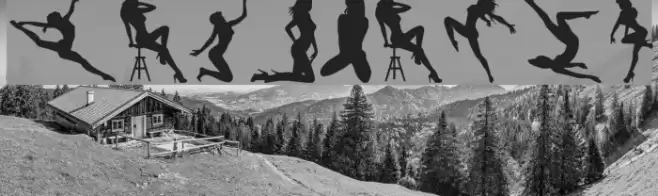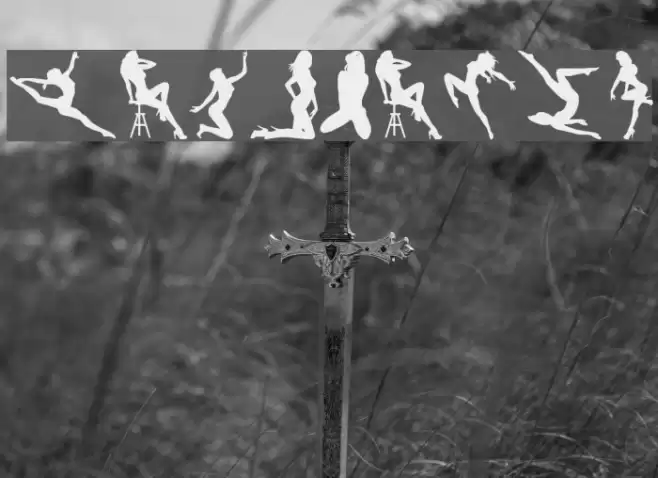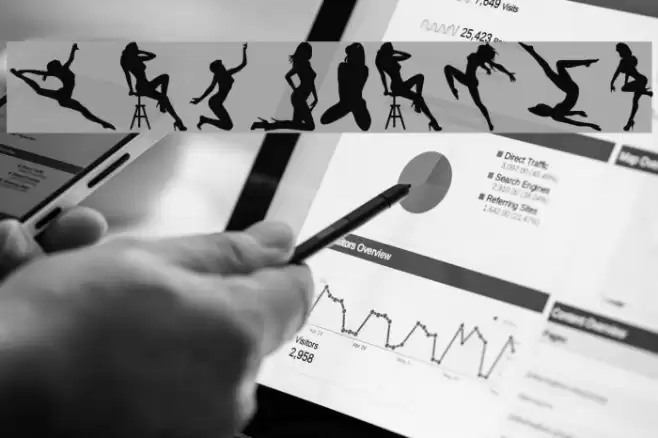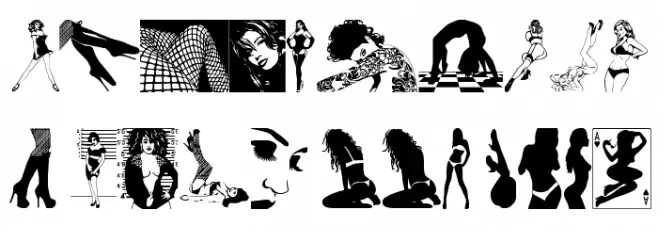
BeautyMarks Font
BeautyMarks Description
A highly decorative and illustrative font composed of detailed silhouettes and artistic depictions of women in various poses, often with props or backgrounds, creating a visually striking and thematic set of glyphs.
A display font featuring artistic female silhouettes as characters from Dingbats fonts.
- Proposed Projects: Posters, album covers, fashion branding, event flyers, editorial spreads, and decorative headlines.
- Overall Style: Decorative, Artistic, Thematic
- Use Case: Logos, Headlines, Posters, Artistic projects